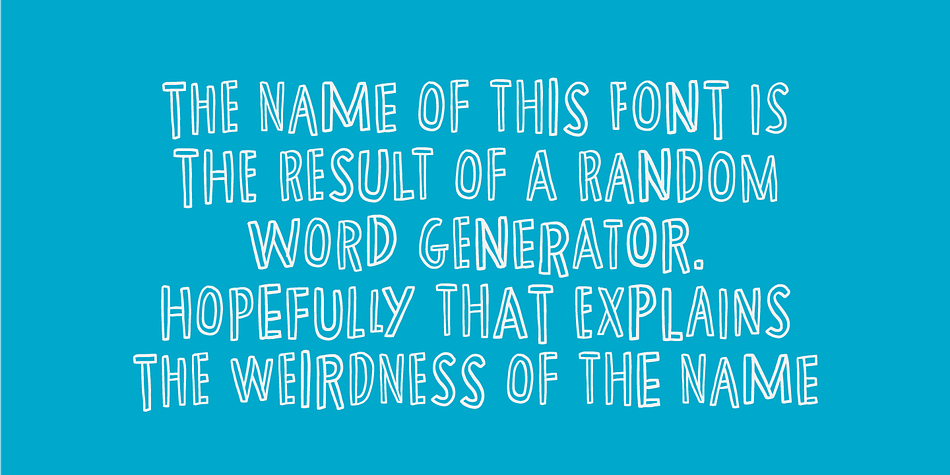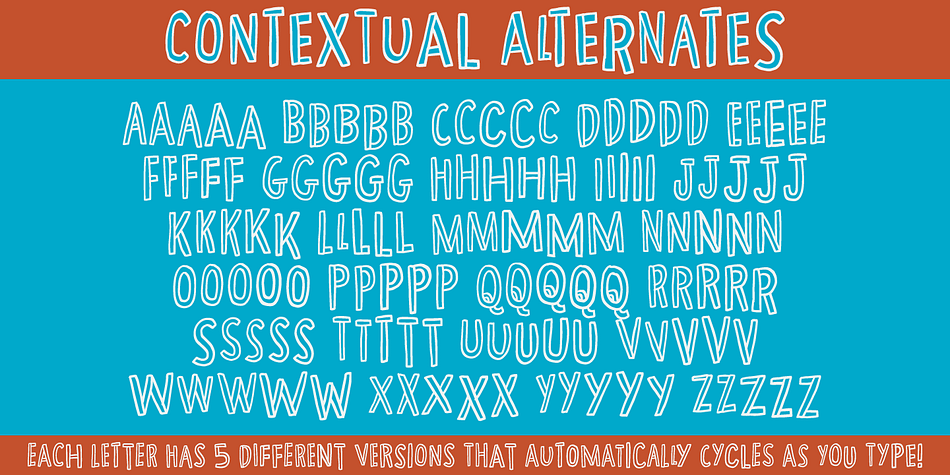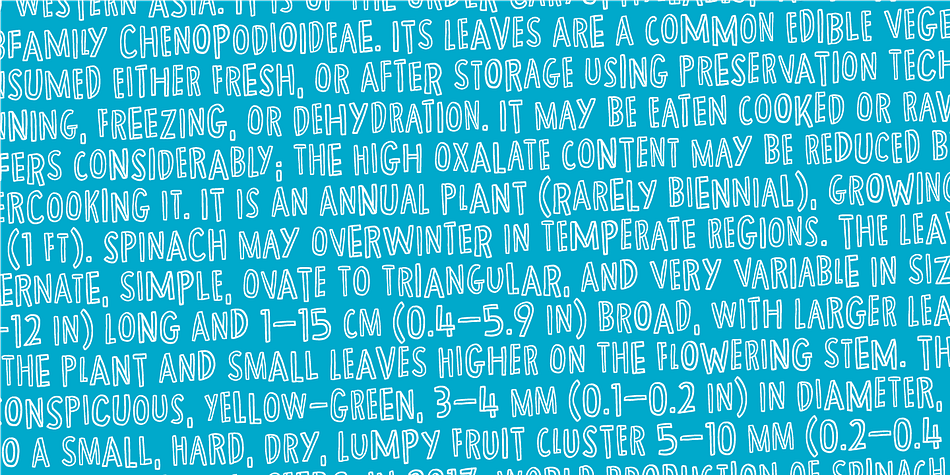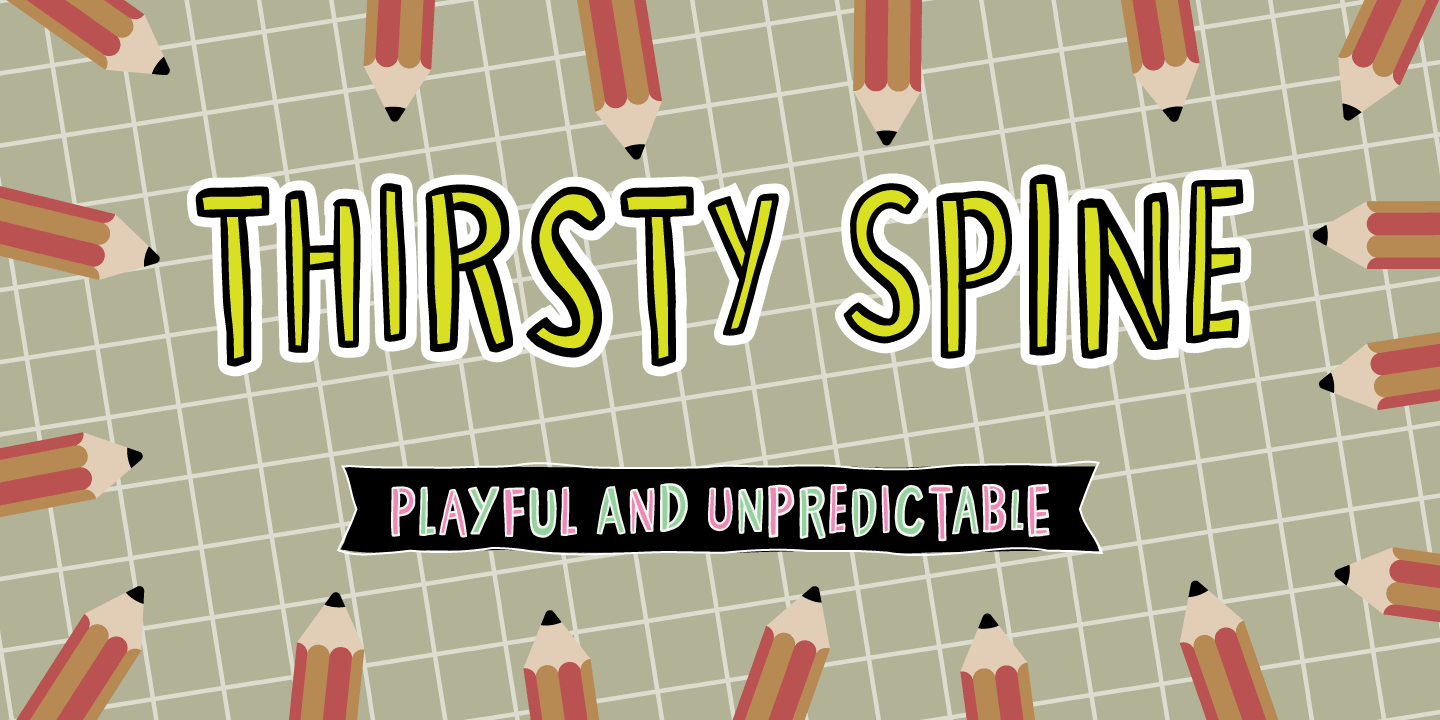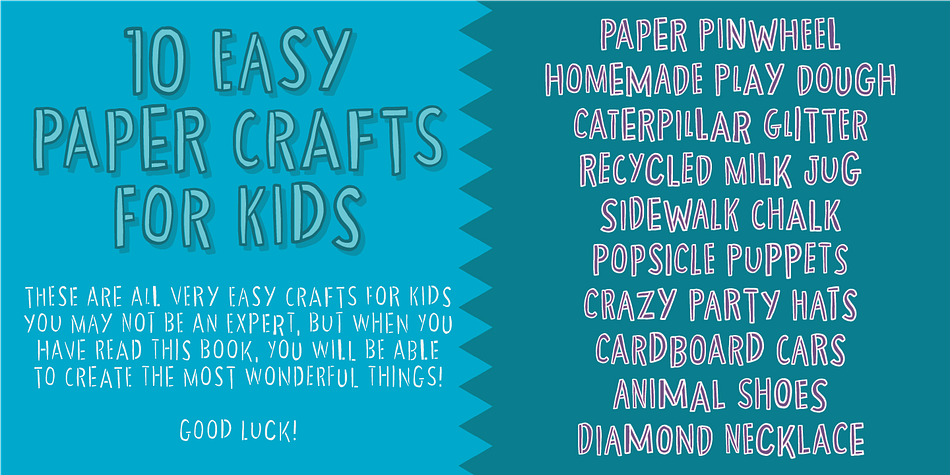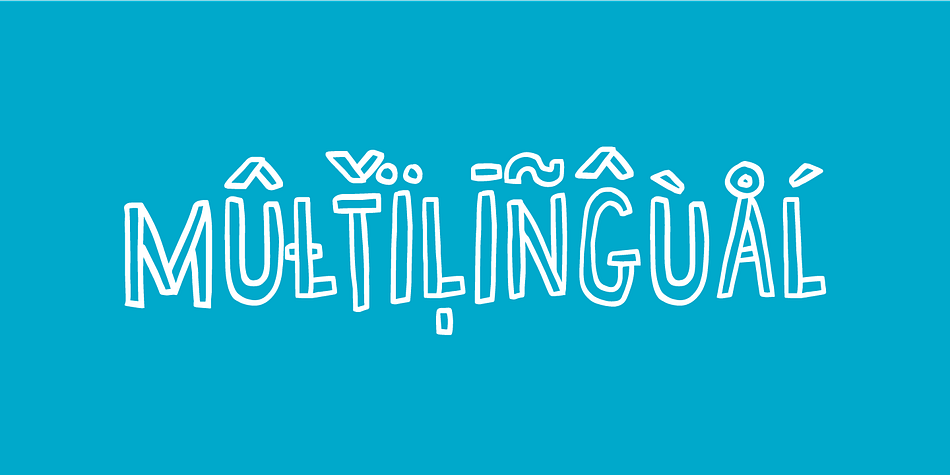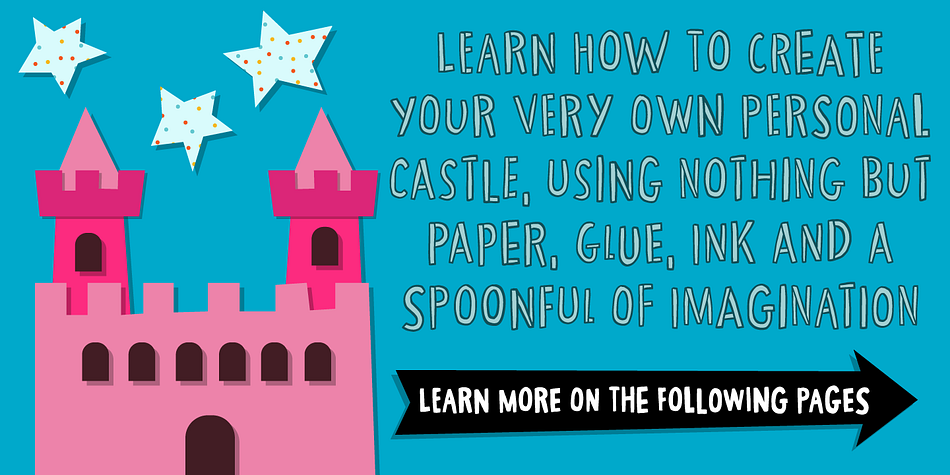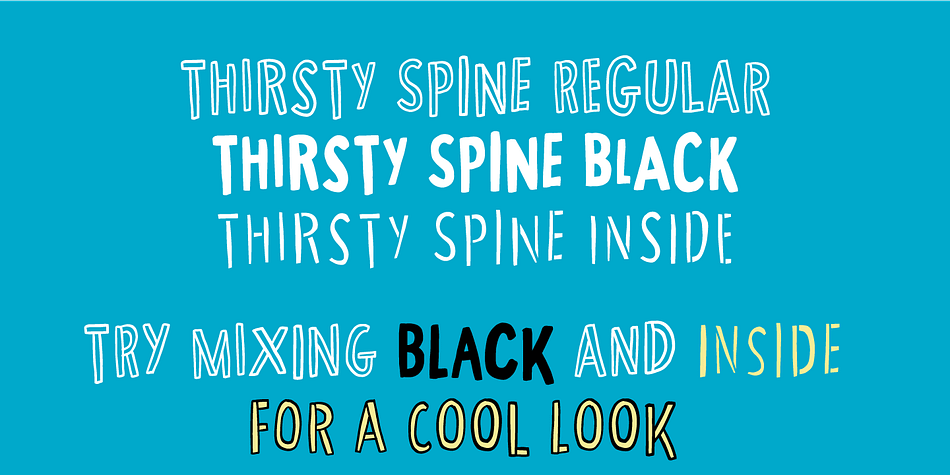
Designed by Jakob Fischer, Thirsty Spine is a hand display font family. This typeface has three styles and was published by Pizzadude.dk.
Here’s a creative font for your crafts, postcards, posters, bookcovers or perhaps your next birthday invitation! Thirsty Spine covers a lot of needs, where a a crazy handmade look is needed. Each letter has 5 different versions, all with it’s own charm. I did very little when digitising this font, and that in order to keep the genuine pen strokes.